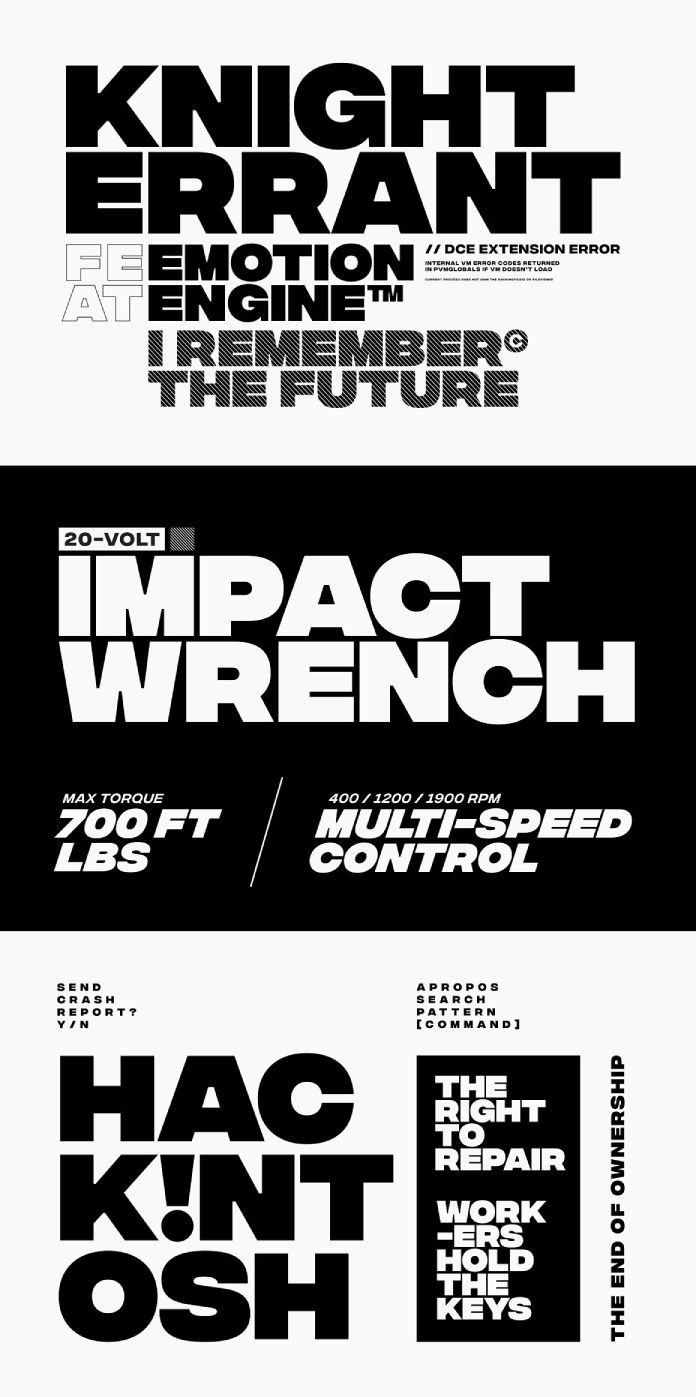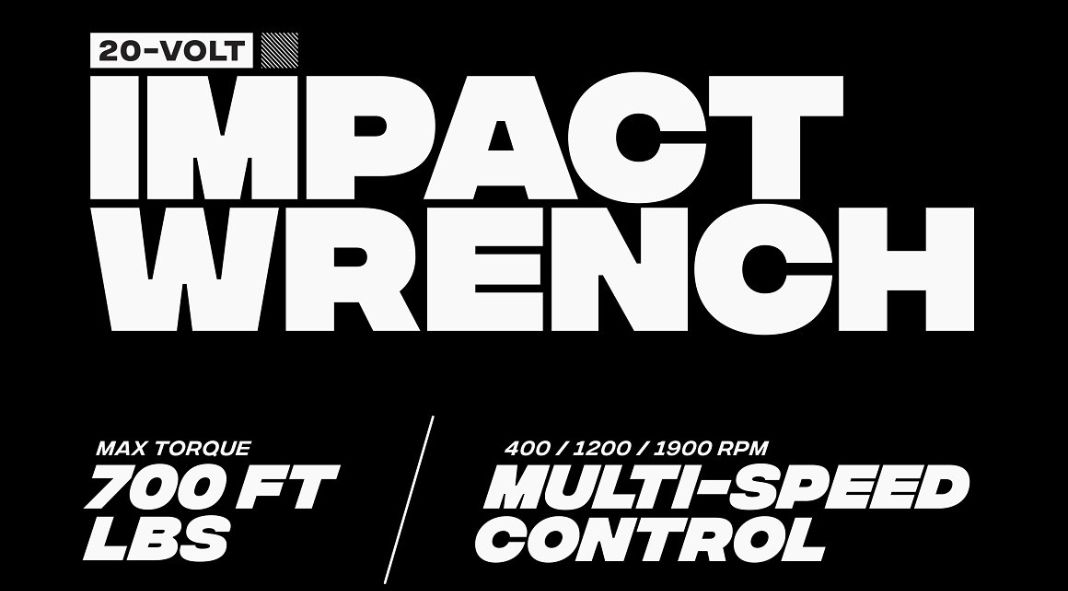
Discover a Bold Sans-Serif Typeface for Headlines and Titles: Integral CF by Connary Fagen.
A sans-serif typeface is a font that lacks the small lines (serifs) at the end of each stroke. Sans-serif fonts are often preferred for headlines and titles as they are easier to read on screens and projectors. Typefaces play a crucial role in any design project, and choosing the right one is essential. This is where Integral CF comes in, it’s a suave and bold sans-serif typeface designed by Connary Fagen.
Bold and Attention-Grabbing
Integral CF is designed to stand out on any platform, it’s an excellent choice for large-format prints or posters. Its six different weights are also equipped with italic styles, making it suitable for various projects. The font is engineered to make an impression, it’s designed to hook the reader’s attention.
Moreover, Integral CF is a fantastic choice for branding, packaging, and promotions on social media platforms. Its bold appearance and great legibility make it a popular choice for many businesses.
The Inspiration Behind the Design
Integral CF’s design is inspired by the lettering on engineering blueprints, and it has a roguish charm and character that is hidden within. The font features large, bold characters with rounded edges that make it both easy to read and a bit playful. Its design is unique, and it pops out with an extra bit of detail that gives it a distinctive feel.
Versatile and Attractive
The Integral CF Font is versatile and attractive, making it suitable for various projects. It can be used in headlines, logos, posters, and even websites. Its robust and consistent design makes it easy to work with, and it complements designs without ever stealing the show.
Final Thoughts
Integral CF is a fantastic sans-serif typeface that offers versatility, attractiveness, and legibility. It’s an excellent choice for any project and can be used on multiple platforms. So, whether you’re designing a logo, creating a poster, or branding, the Integral CF typeface is a great option to consider.
In summary, the design of the Integral CF font by Connary Fagen lets you add a little bit of character wherever it’s needed. If you’re looking for a bold and versatile sans-serif typeface for your next project, Integral CF is definitely worth trying. It grabs attention, exudes confidence, and makes for a fantastic addition to any designer’s toolkit.